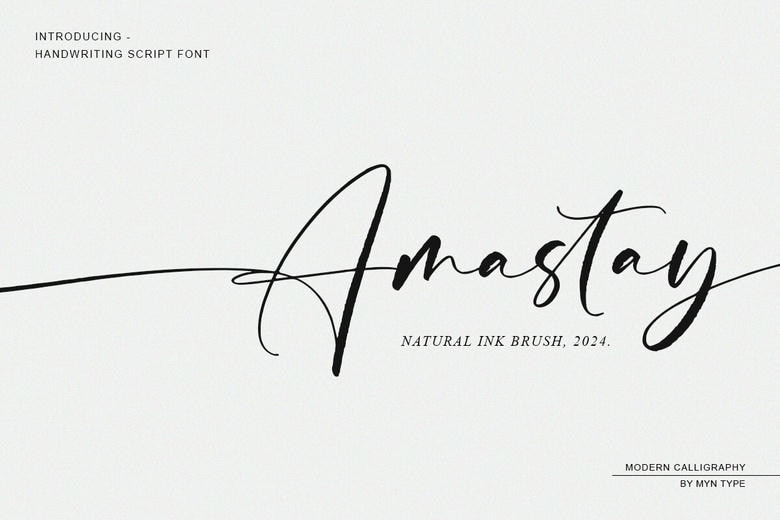
Amastay Font
Amastay is a natural ink handwriting cursive calligraphy font with a swash tail that combines the organic and textured feel of ink with a natural rhythm that resembles elegant handwriting. The free version provides all uppercase and lowercase letters and a few special characters too.
Amastay Handwritten Script Font